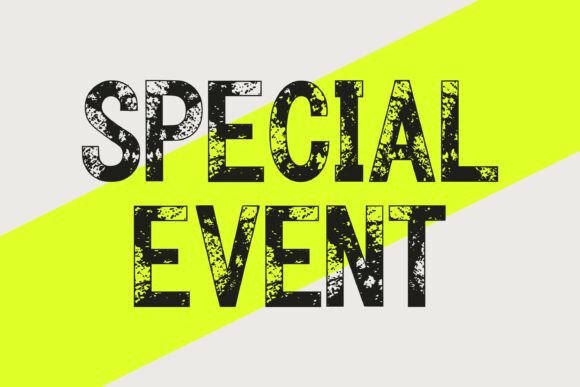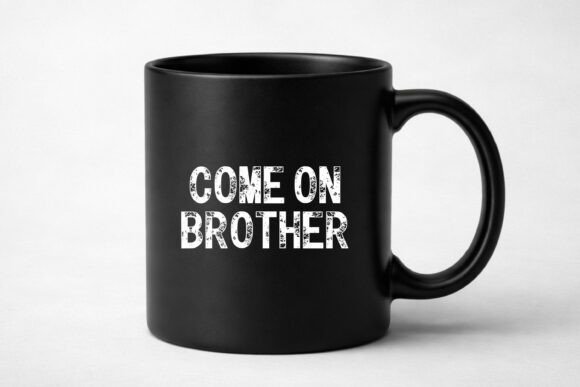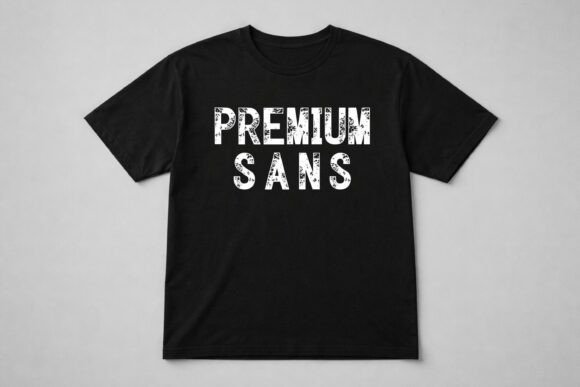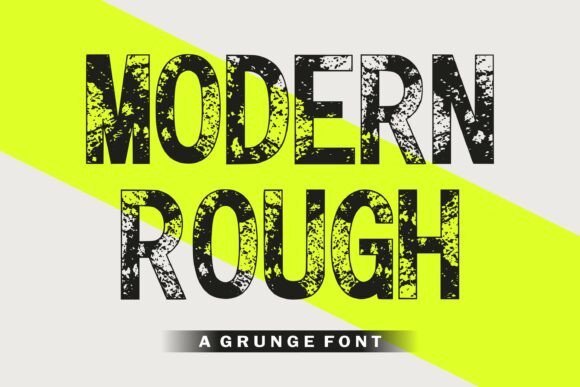
Introduction to Modern Rough Font
Modern Rough is a bold and expressive grunge font designed to give your projects a strong, edgy, and contemporary look.
Featuring distressed textures and rough details, this font is perfect for designs that need a rebellious and urban feel Ideal for posters, streetwear branding, logos, album covers, social media graphics, and bold headlines, Modern Rough adds character and impact to any visual composition.